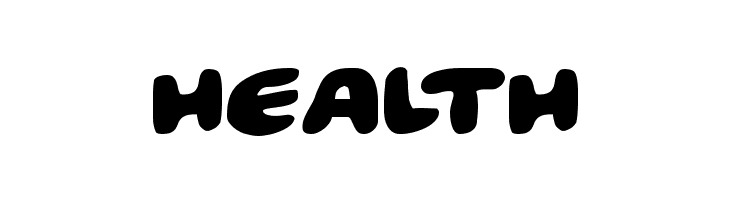
A playful, bold font with rounded, bubbly characters ideal for fun and informal designs.
A playful, outlined font with bold, rounded characters ideal for comic-style designs.
A bold, italic, and funky font with rounded, playful characters.
A playful, bold, 3D italic font with a cartoonish style and rounded characters.
A bold, playful font with a cartoonish, energetic style.
A geometric, segmented font inspired by digital displays, offering a modern and minimalistic look.
A geometric, crystal-like font with a three-dimensional, decorative style.
A geometric, angular font with a digital, futuristic style and semi-italic slant.
A digital, futuristic font with geometric, angular characters resembling LED displays.
A futuristic, digital-style font with a three-dimensional, crystal-like appearance.
Recent favorites include Funny Pages Expanded, Funny Pages Outline, Funny Pages Funky Italic, Funny Pages 3D Italic and Funny Pages Funky. They balance clarity and personality, working well for tech brands, editorial layouts, and social visuals.